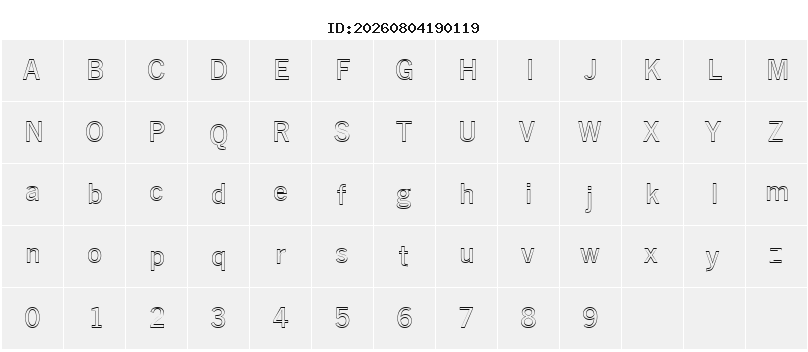
About NewsGotTMedOu1.ttf
NewsGotTMedOu1.ttf is a modern, elegant sans-serif font designed for ultimate readability and visual harmony. Perfect for branding, headlines, web design, and print materials.